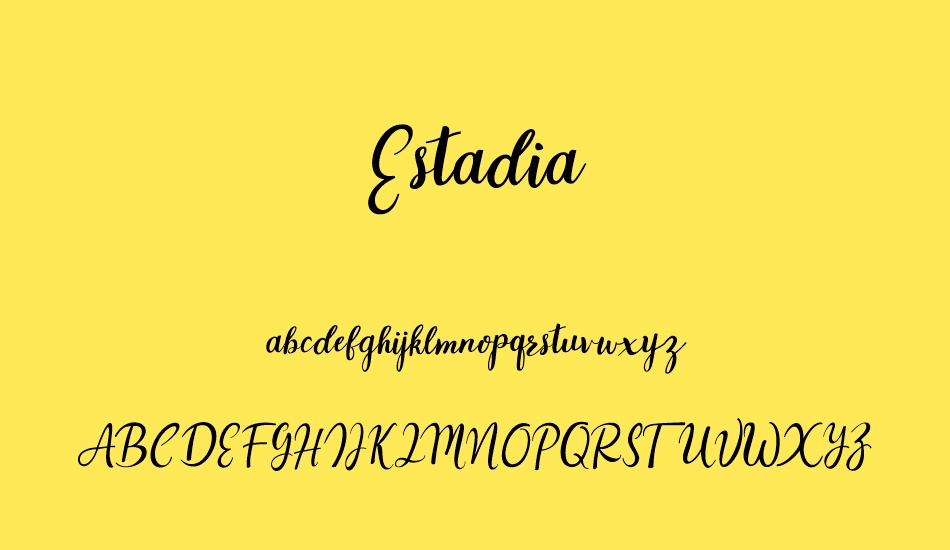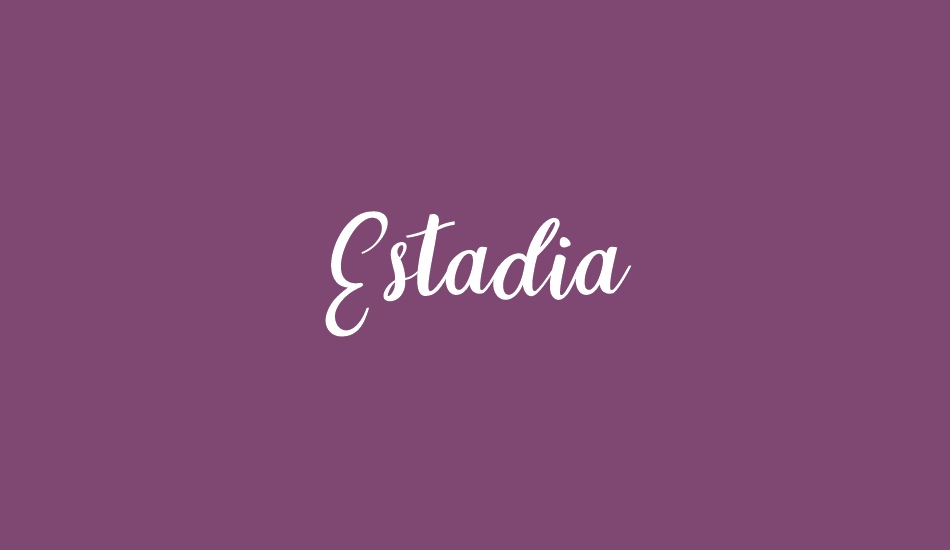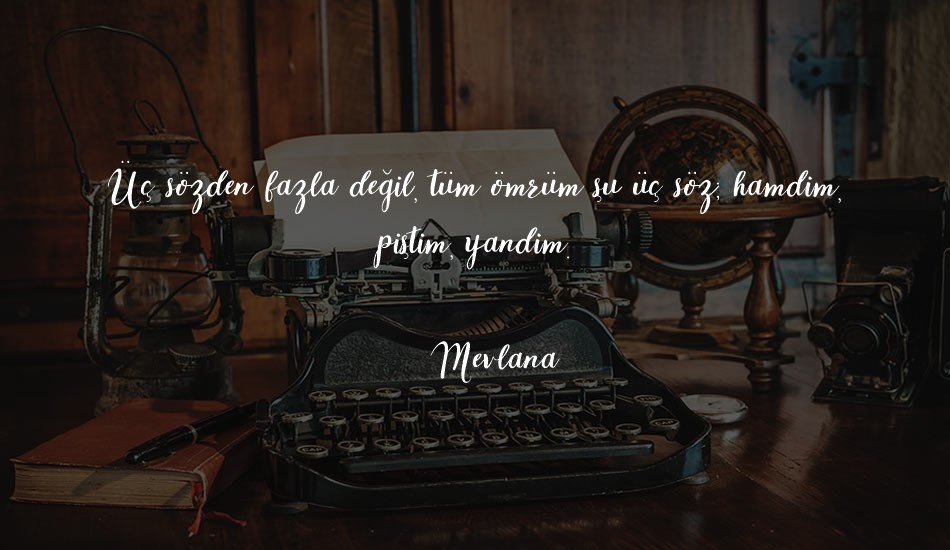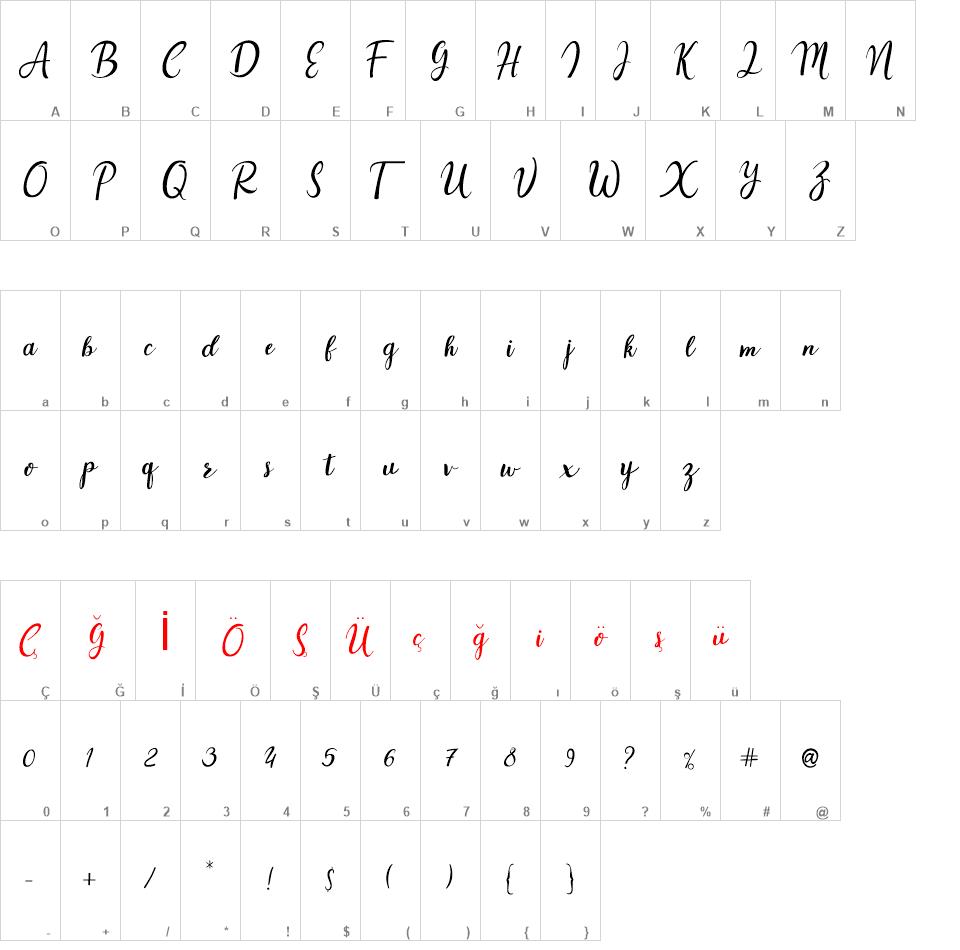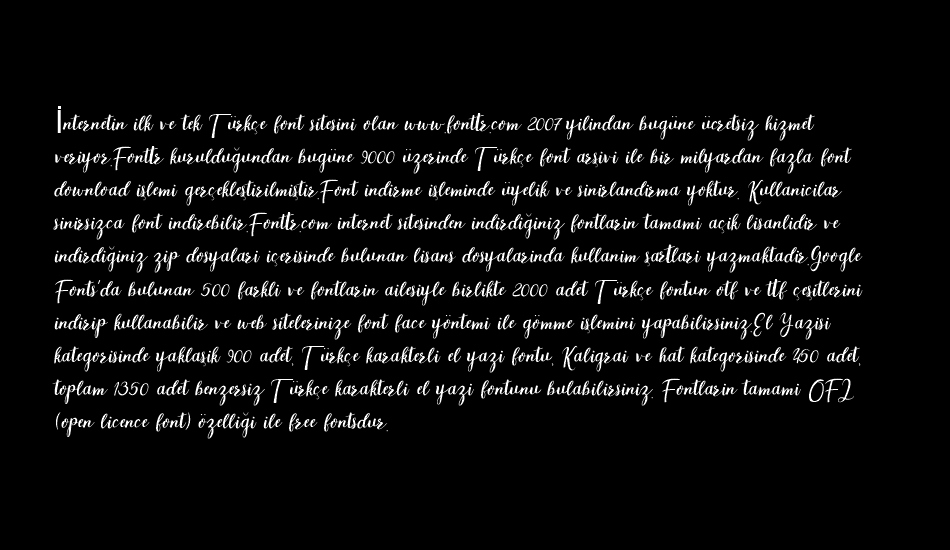
Estadia
Estadia is a Script font that has a varied base line, fine lines, classic, elegant, modern touch. Can be used for various purposes.
if you want to use for your work, it is a lot of features in it to contain a set of letters and letters, alternates, ligatures and multiple language support.